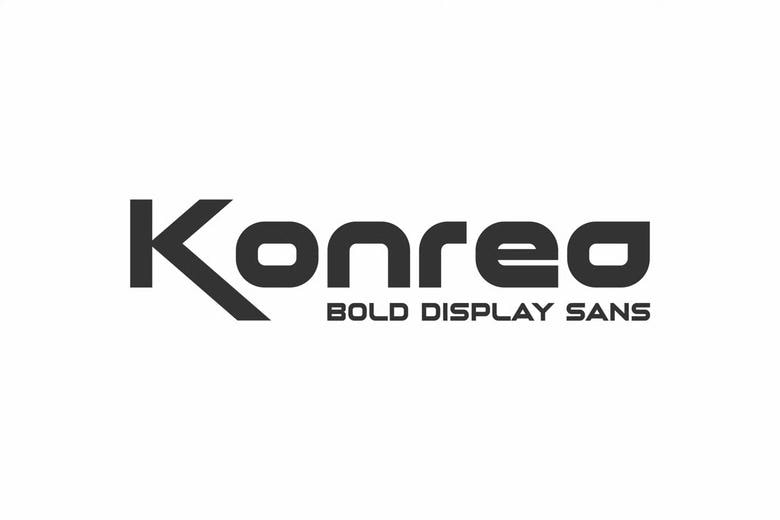
Konrea Font
Konrea Font– Modern Font is a bold and authentic display font. The font is suitable for any branding project like logo, esport, and many more. outstanding in a wide range of contexts.
Konrea Bold Display Sans Font